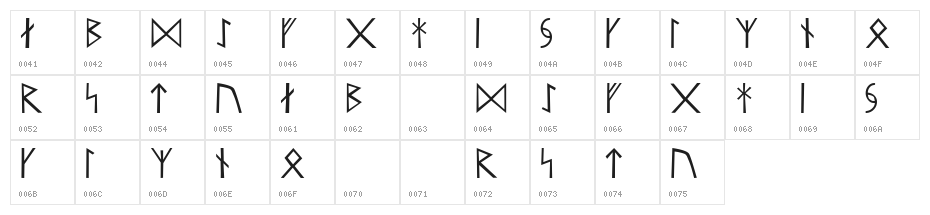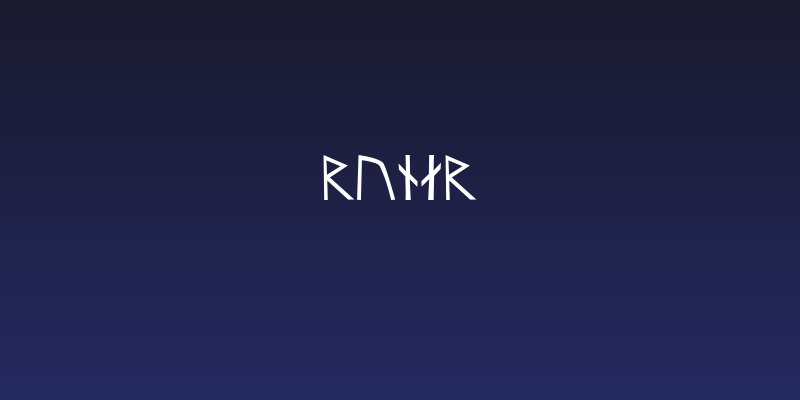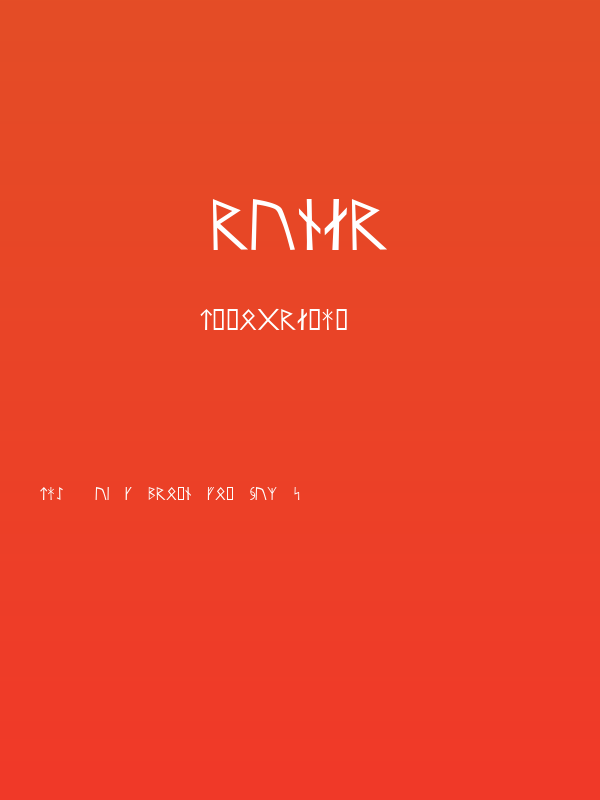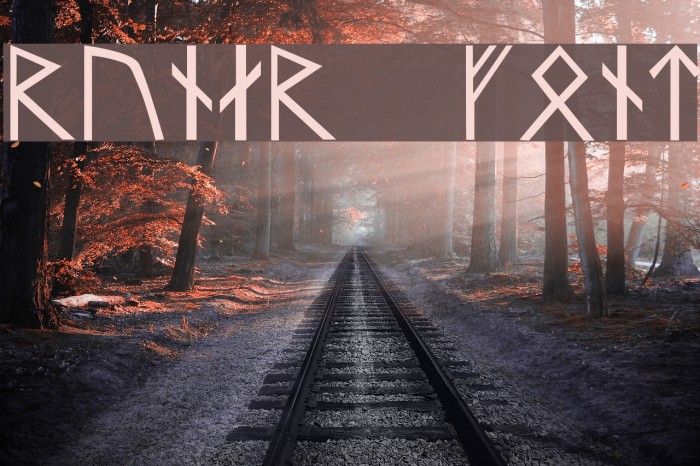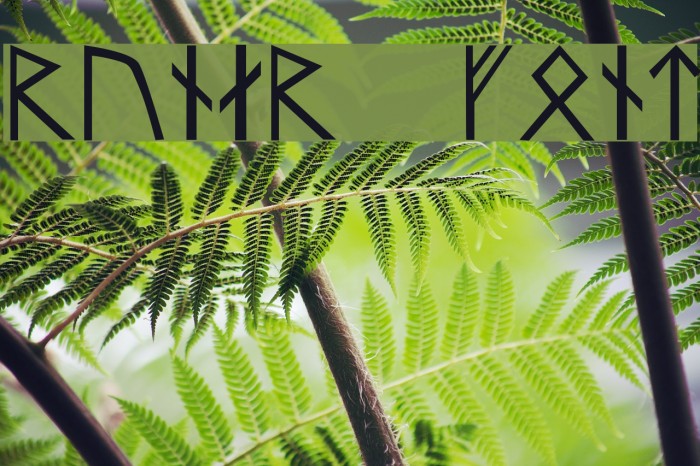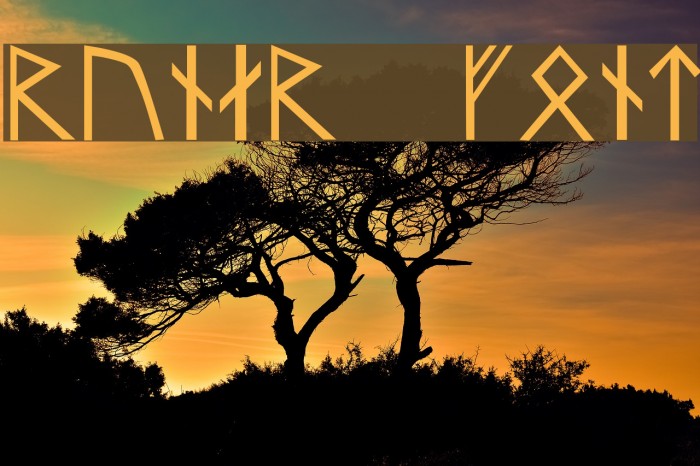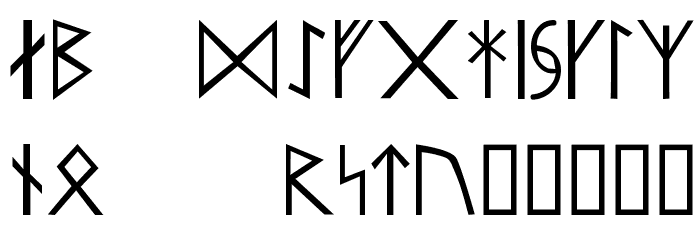
Runar Font
Runar Description
This font is inspired by ancient runic alphabets, characterized by its angular and geometric shapes. Each character is composed of straight lines and sharp angles, giving it a distinctly historical and mystical appearance. The font evokes a sense of ancient Nordic or Germanic cultures, often associated with runes used in inscriptions and carvings. Its bold and striking design makes it suitable for projects that require a touch of antiquity and mystery. The uniformity in line thickness across characters ensures a cohesive look, while the unique shapes of each letter add an element of intrigue.
| Use Case | Logos, Headlines, Themed events |
| Proposed Projects | Ideal for fantasy-themed designs, historical reenactment materials, or branding for products with a mystical or ancient theme. |